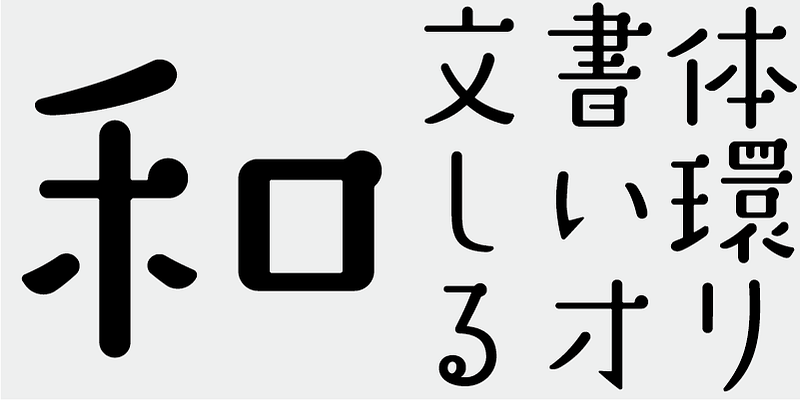
AB Mayuminwalk Font Free Download is a sweet, handwritten-style Japanese typeface that radiates warmth, softness, and everyday charm. The name “Mayuminwalk” (まゆみんうぉーく) gives the impression of a gentle stroll—inviting and friendly—just like the font itself. It’s perfect for journals, greeting cards, blogs, lifestyle branding, children’s content, and any design that calls for a personal, heartwarming touch.
AB Mayuminwalk Font Free Download features rounded strokes, slightly uneven character shapes, and a casual flow that mimics handwriting with a marker or gel pen. This font brings an approachable and relatable tone to your designs, making it especially suitable for use in informal, handwritten-style settings. It supports Hiragana, Katakana, Kanji, and basic Latin characters, making it great for bilingual and culturally rich visual storytelling.
Cute, cozy, and full of personality—AB Mayuminwalk Font is your go-to choice when you want to create designs that feel handwritten, heartfelt, and sincerely inviting.